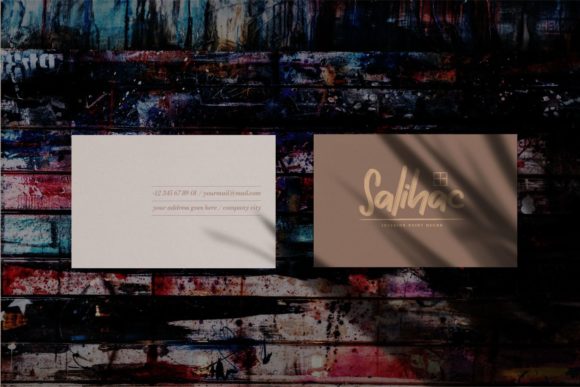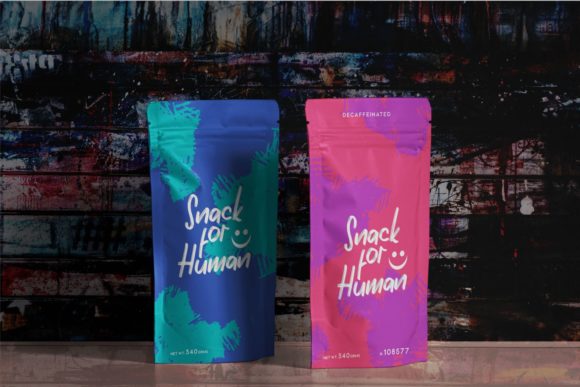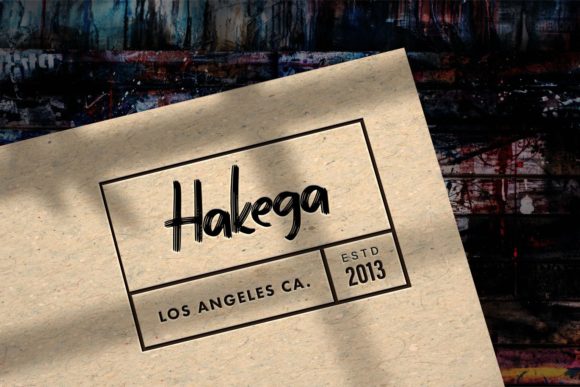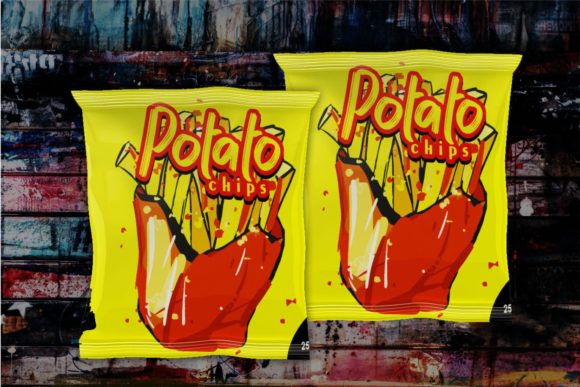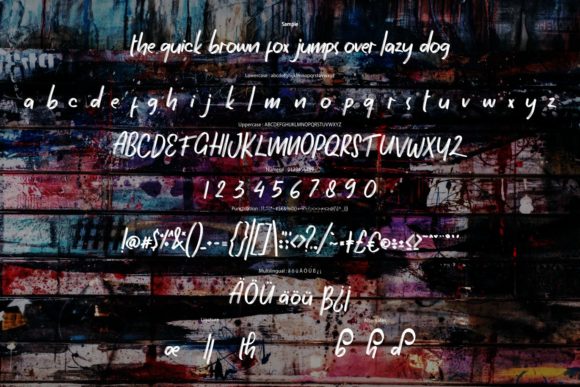
The Birth of a Creative Masterpiece: Anileba Font
Have you ever sat at your desk, staring at a blank sheet of paper, waiting for the perfect idea to strike? The blank canvas can be daunting, but it’s in these moments that true creativity often flourishes. For designers, the search for the perfect font can be a crucial part of this process.
Enter Anileba Font, a bold, brushed display font designed to make a statement. Whether you’re crafting a unique letterhead, title, or stationery, Anileba Font’s original look is sure to capture attention. This versatile font is a valuable addition to any designer’s toolkit, offering endless possibilities for creative expression.
With Anileba Font, the possibilities are endless. From elegant invitations to eye-catching advertisements, this font’s unique character will elevate your designs to new heights. Whether you’re a seasoned pro or just starting out, Anileba Font is a must-have for any designer looking to take their work to the next level.
Anileba Font Key Features
- Unique Characteristics: Anileba Font features a unique blend of modern and traditional design elements, making it suitable for a wide range of applications, from fashion and beauty to art and culture.
- Font Style: The font comes in both regular and bold styles, allowing designers to create visually appealing contrasts and emphasis in their designs.
Anileba Font Review
I’ve had the chance to work with the Anileba Font, and I must say it’s a unique and interesting choice. Here’s my honest review:
- The Anileba Font has a distinctive, exotic feel that’s perfect for projects that need a touch of elegance and sophistication.
- The font is highly customizable, with a wide range of styles and weights available, making it easy to find the perfect fit for your design.
- The Anileba Font is also highly legible, even at small font sizes, making it a great choice for body text and other areas where readability is key.
- The Anileba Font may not be the best choice for projects that require a more modern or minimalist aesthetic, as its ornate details may be too much for those styles.
- The font’s unique feel may also make it difficult to pair with other fonts, so you may need to be more careful when selecting complementary fonts.
Overall, I think the Anileba Font is a great choice for designers who want to add a touch of sophistication and elegance to their projects. While it may have some limitations, its unique feel and high customizability make it a versatile and effective choice for a wide range of design applications.
Getting the Most Out of Anileba Font
For optimal results, use Anileba Font for titles and headings to create a striking visual impact. Experiment with different font sizes, colors, and styles to create a unique look. Consider pairing Anileba Font with other fonts to create a visually appealing contrast.
Anileba Font is ideal for:
- Graphic design projects
- Logo designs
- Web design
Alternatives to Anileba Font
Great Vibes is a modern, elegant script font that is perfect for creating a professional and sophisticated look. It’s ideal for use in logos, branding, and advertising materials. Great Vibes is more refined and polished compared to Anileba Font, making it suitable for formal and high-end projects.
Dancing Script is a playful, cursive font that is perfect for creating a fun and lively atmosphere. It’s ideal for use in social media, blog posts, and other online content. Dancing Script is more whimsical and informal compared to Anileba Font, making it suitable for casual and creative projects.